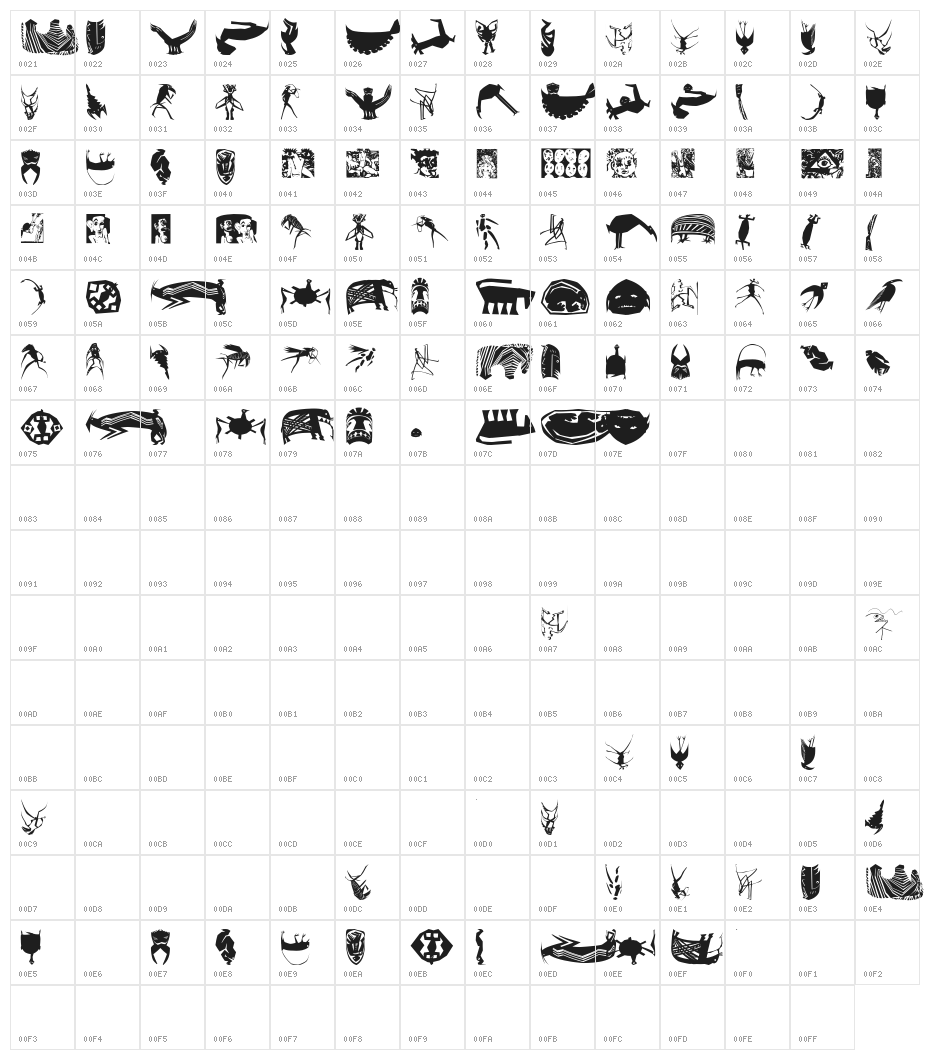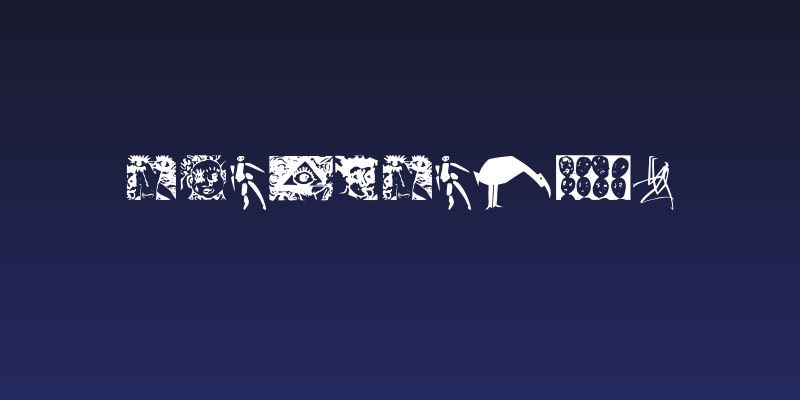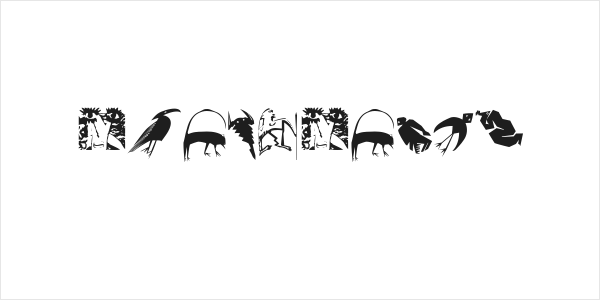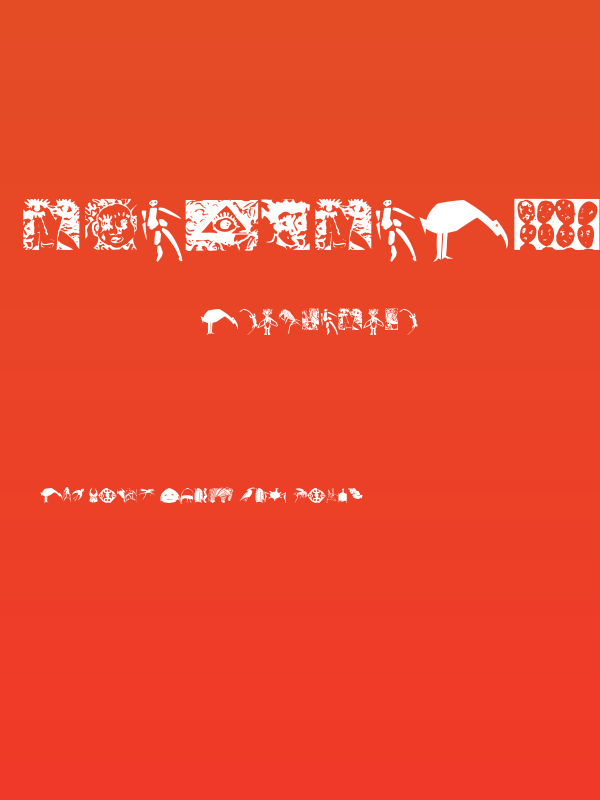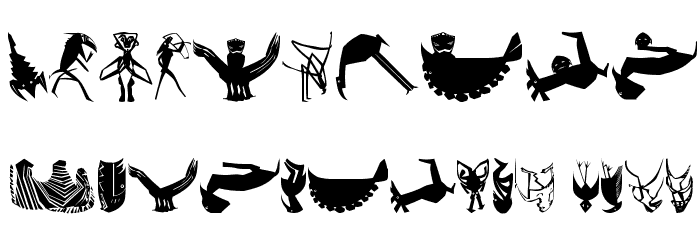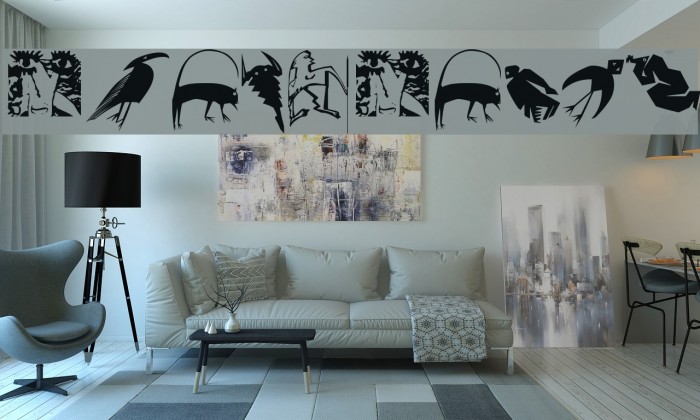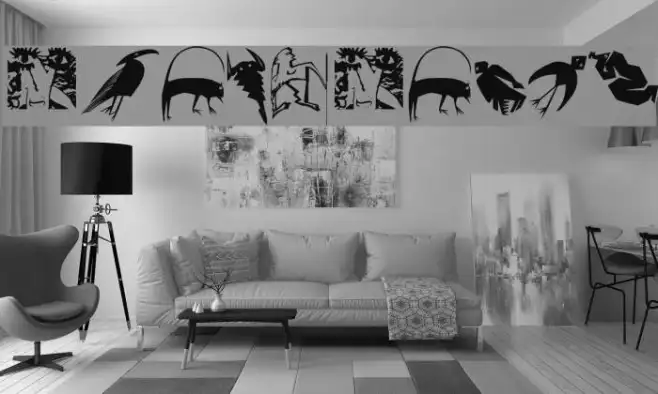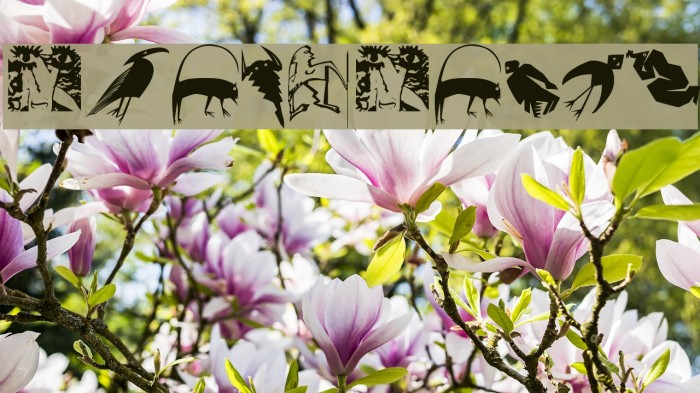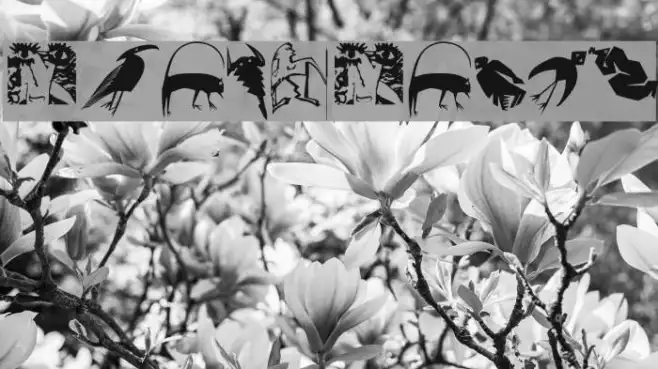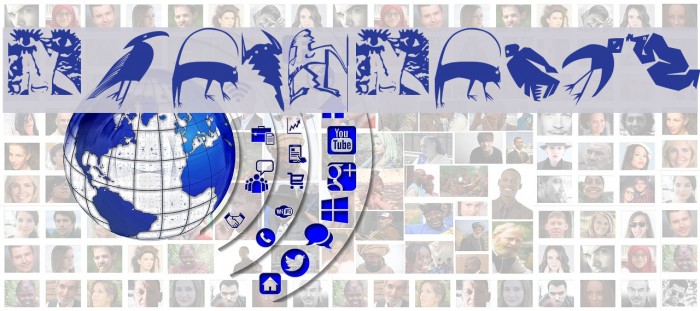
AfricArtes Font
AfricArtes Description
This font features a unique and artistic design inspired by African art and culture. Each character is crafted with intricate patterns and abstract shapes, resembling traditional African masks, animals, and figures. The font is highly decorative, with each letter and symbol appearing as a miniature piece of art. The characters are bold and expressive, making them stand out with their detailed and complex designs. This font is not suitable for body text due to its intricate nature but is perfect for creating eye-catching headlines and artistic projects.
| Use Case | Headlines, Logos, Artistic projects |
| Proposed Projects | Ideal for cultural projects, art exhibitions, event posters, and any design work that seeks to incorporate African themes or a bold artistic flair. |